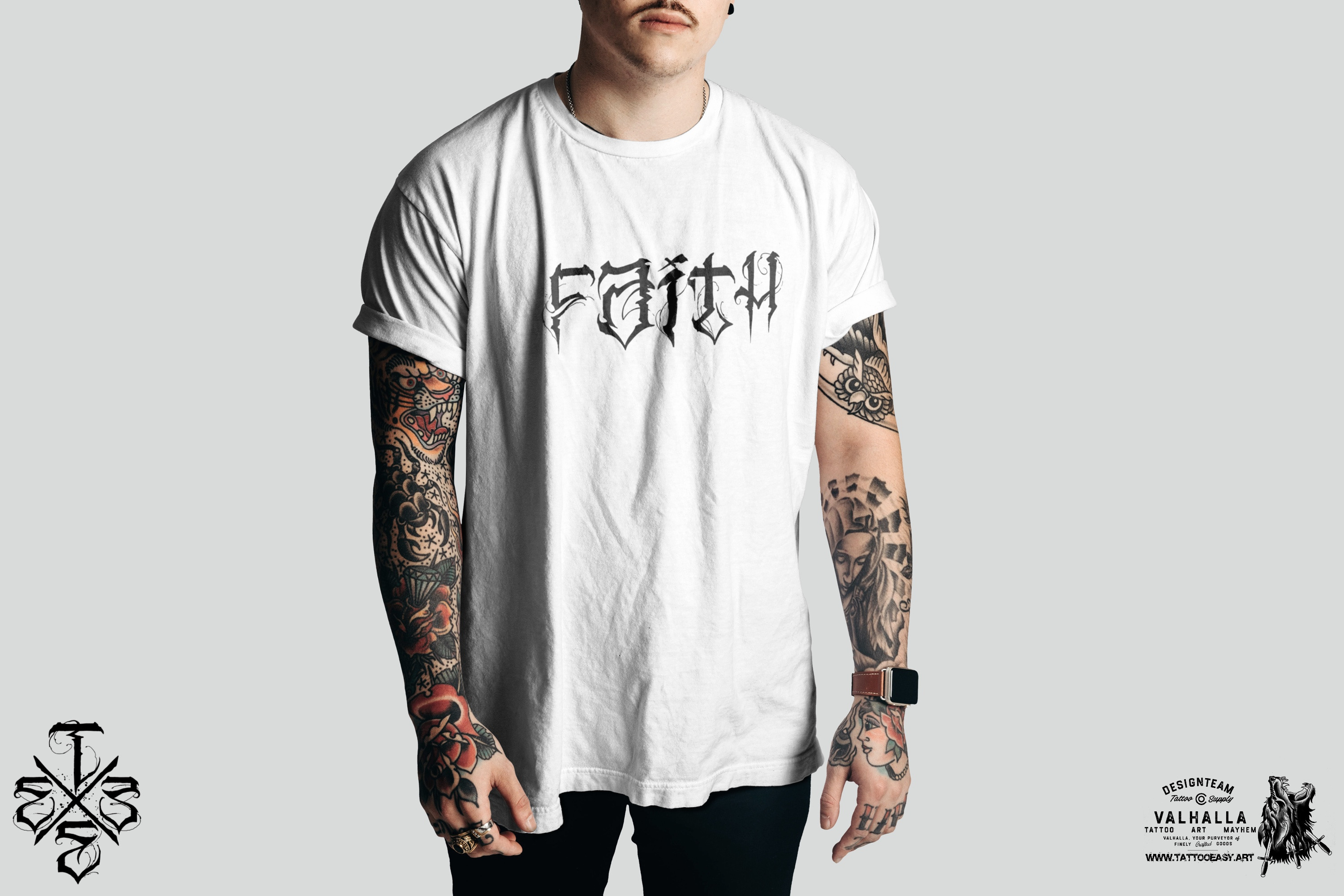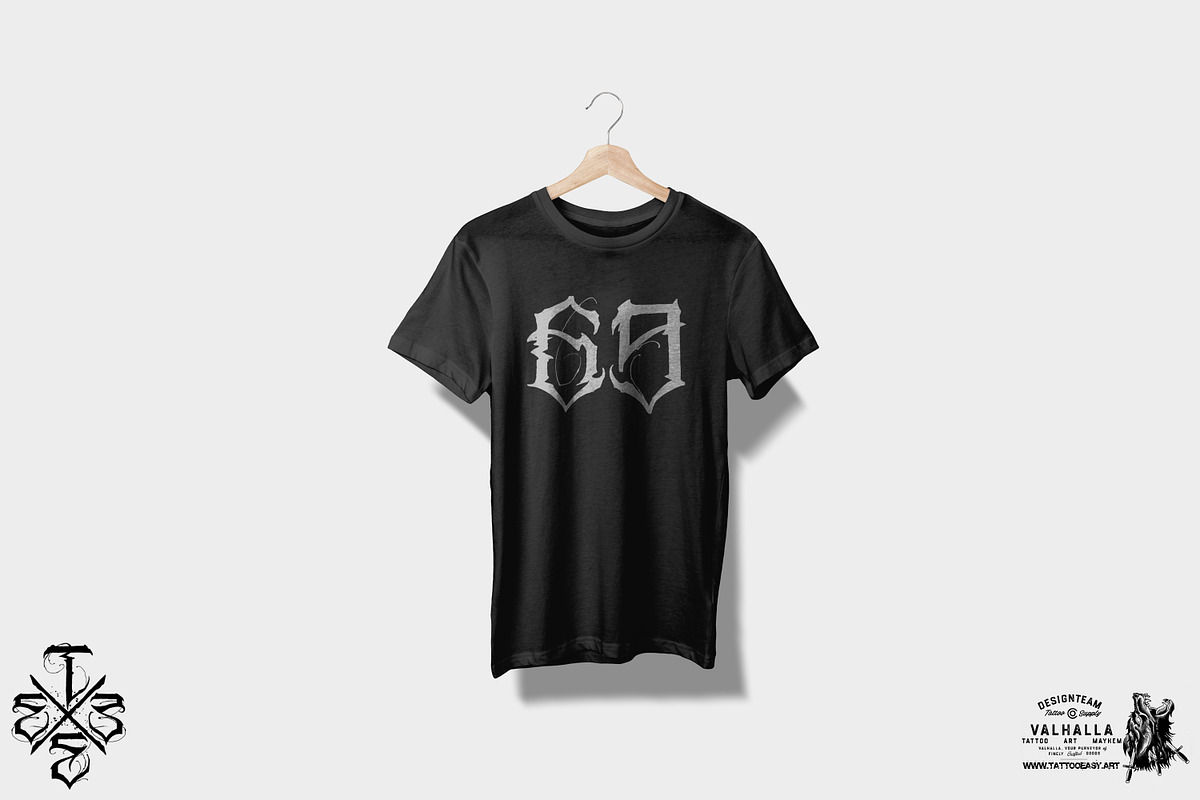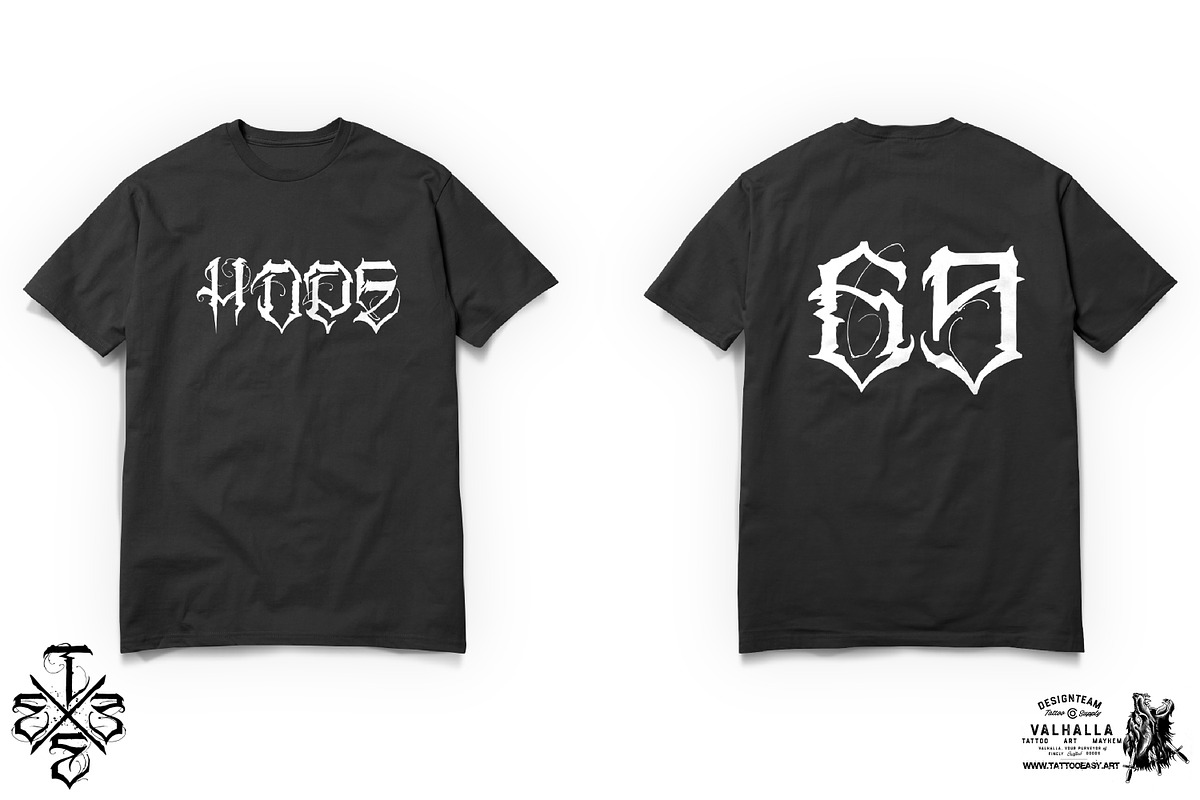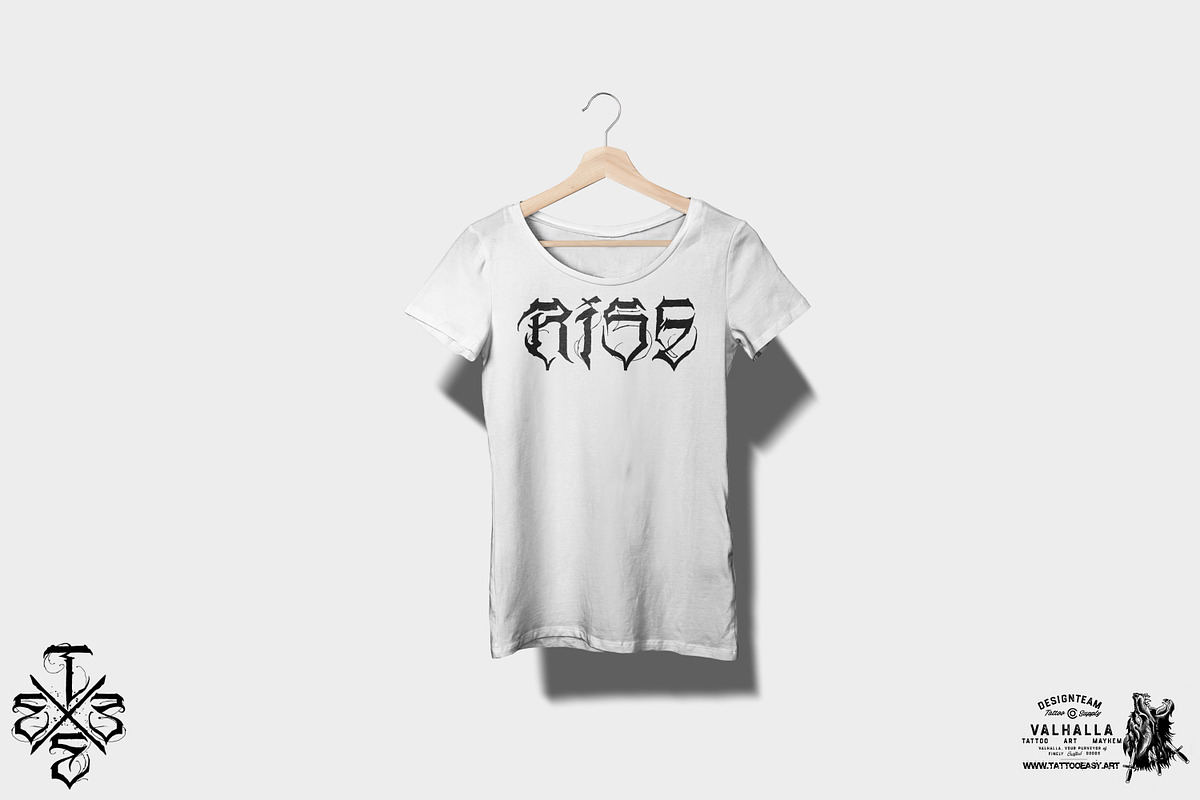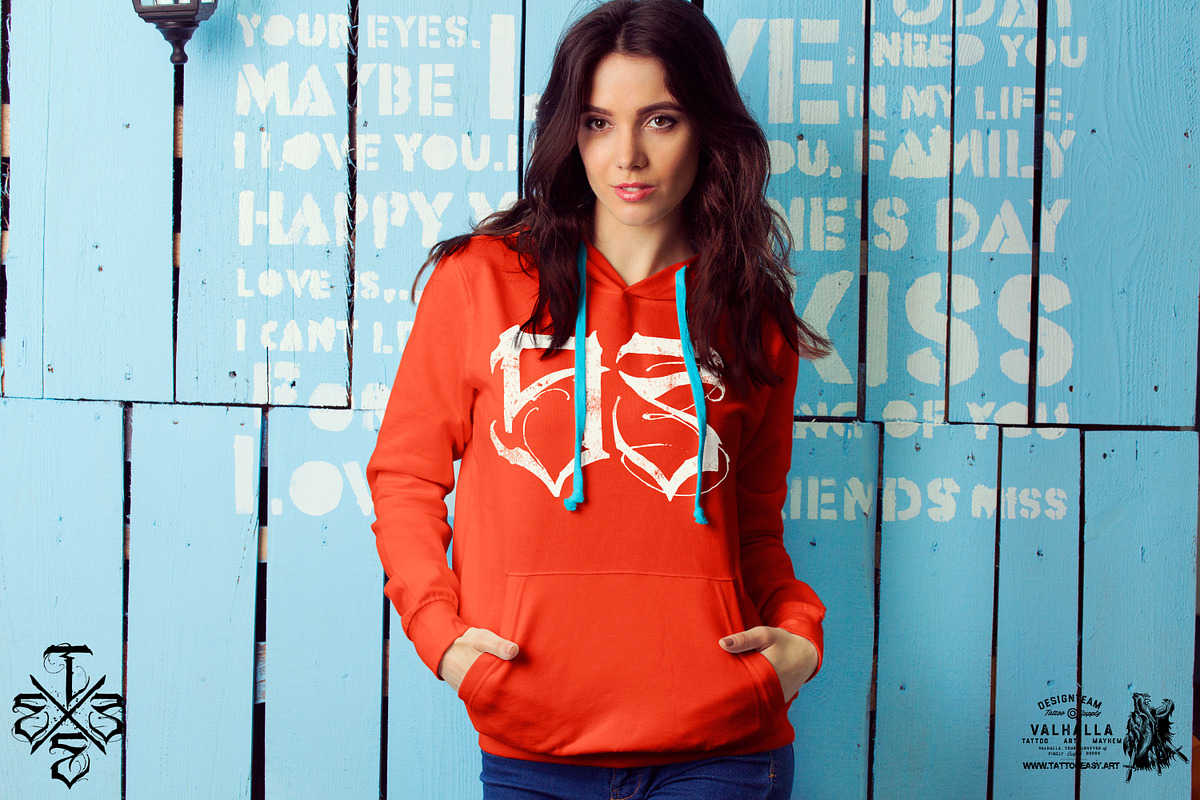
Shell shock tattoo font
A duo caps font, mix & match the lower caps with the capitals to find your perfect combination! Fun project built with font self 2022 from design team Valhalla